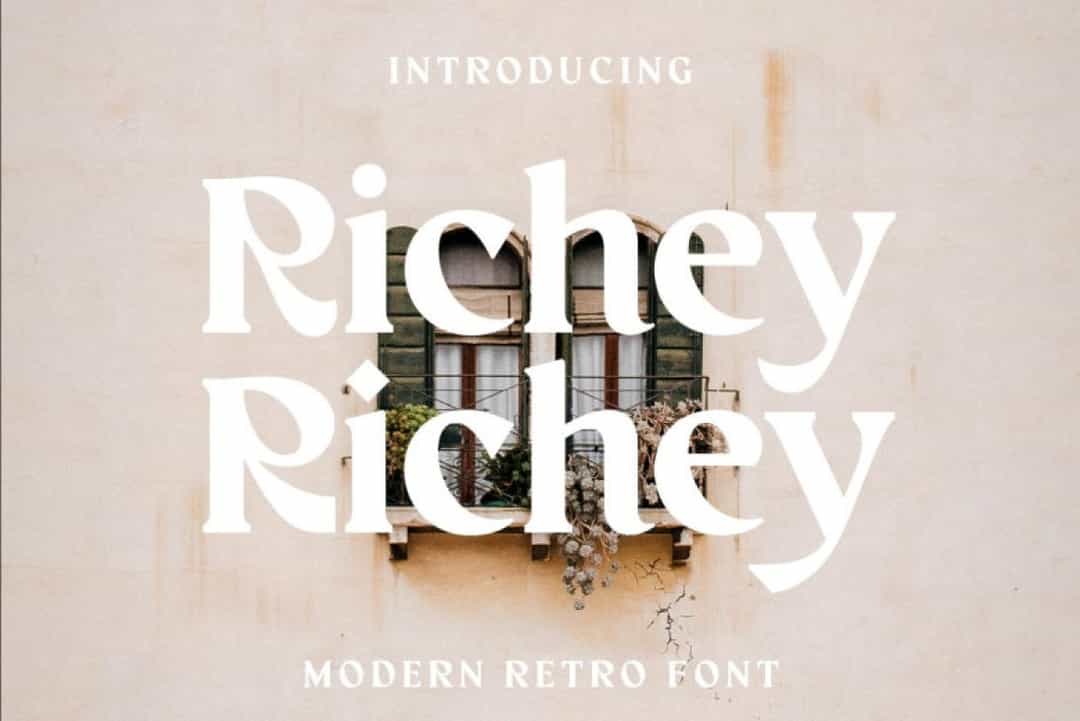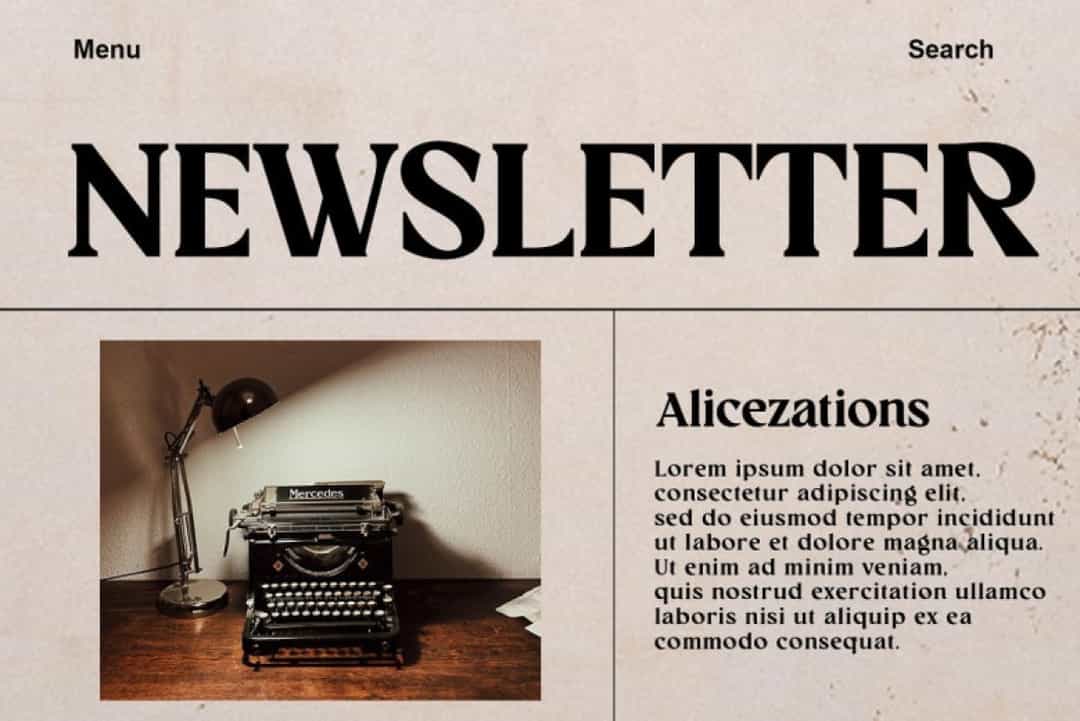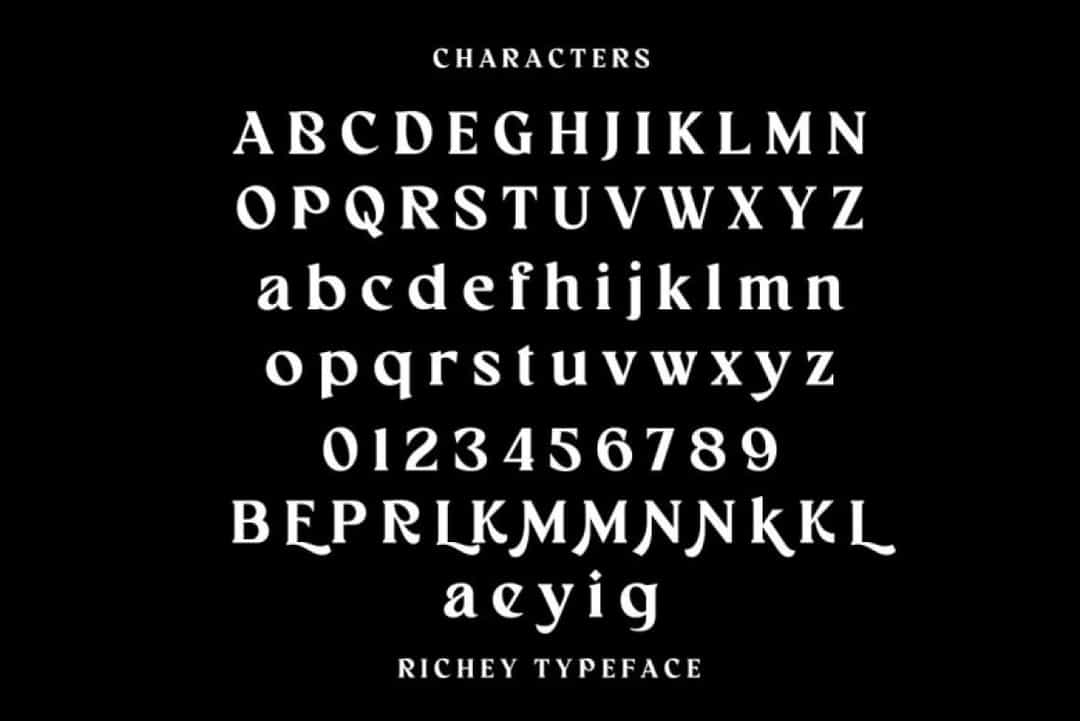
Today we would like to introduce “Richey”, our latest release. Showcasing classic and vintage styles with this serif font’s retro stylings, Richey is perfect for making any design stand out more unique and distinct! Easily apply this clean and minimalist style font into magazine covers, book covers and invitations; social media posts or anything else that needs some personalization!